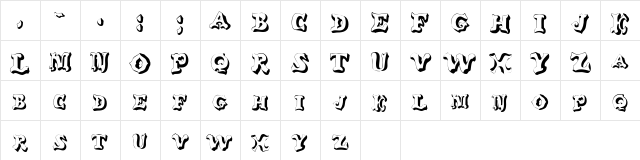
ScaredOfShadowsSCapsSSK Regular
Design Context for ScaredOfShadowsSCapsSSK Typeface
ScaredOfShadowsSCapsSSK is built around its visual character rather than neutral utility — its distinctive forms are designed to make an impression at display sizes.
Font Pairing: Pair with a clean neutral sans-serif for body copy to let ScaredOfShadowsSCapsSSK's character lead without overwhelming the composition.
Pro Tip: Use ScaredOfShadowsSCapsSSK exclusively at display sizes — it was designed to be seen, not read at length. Let a neutral companion handle body copy.